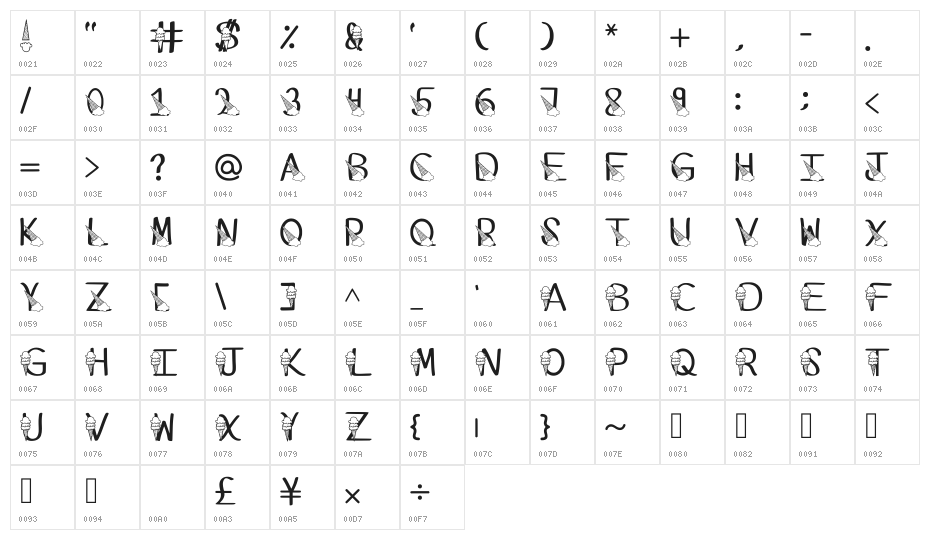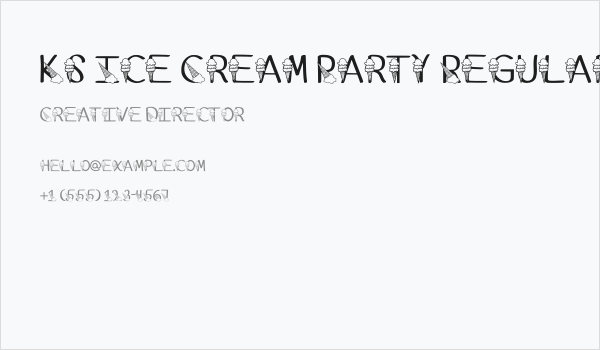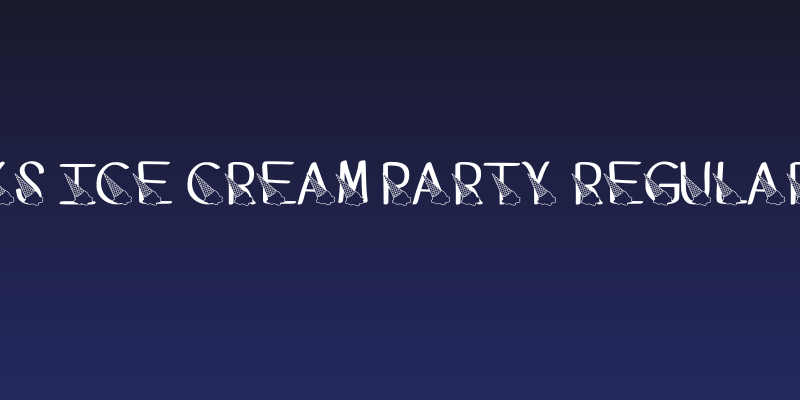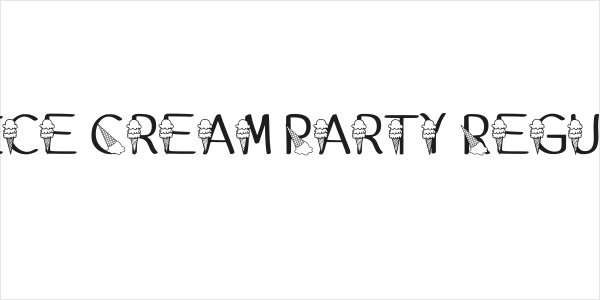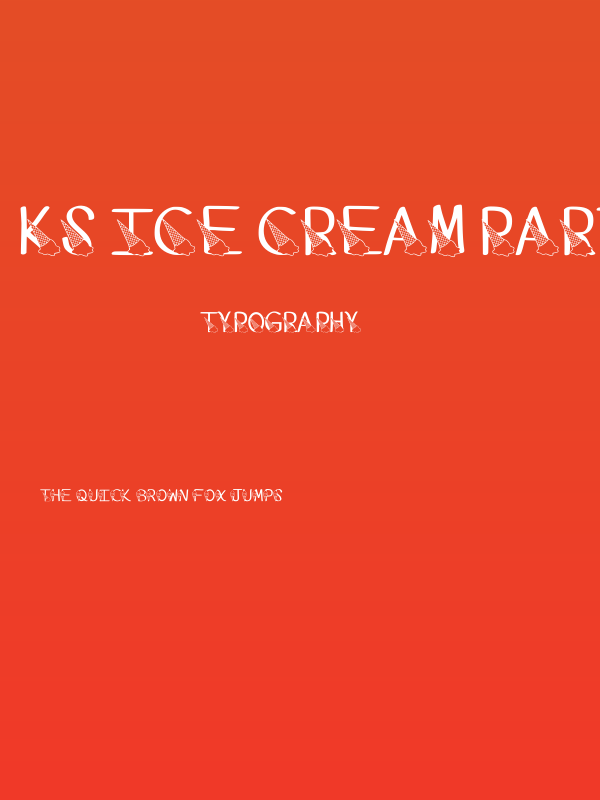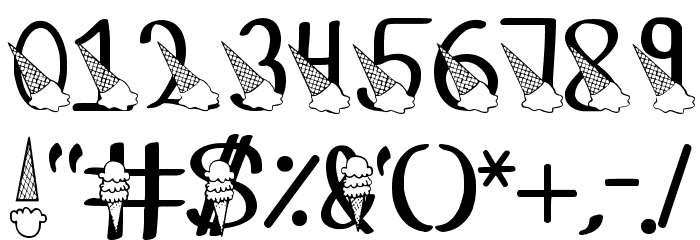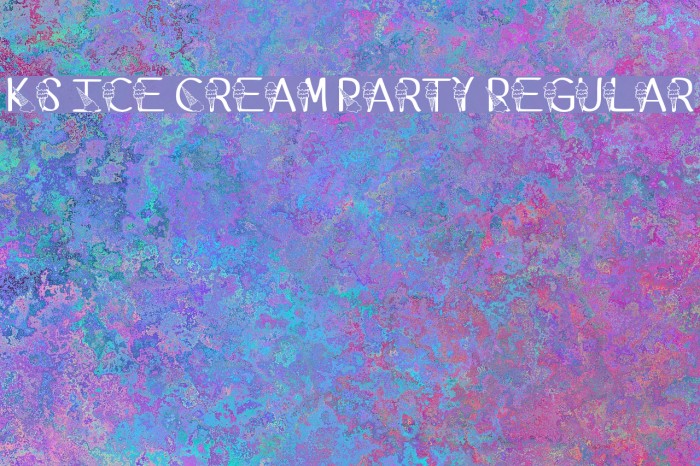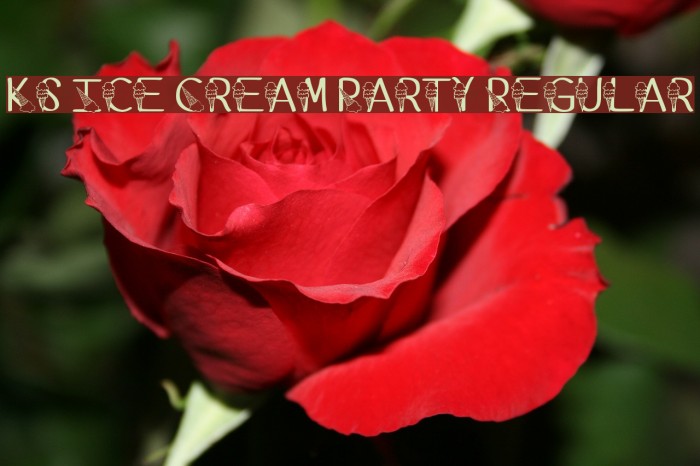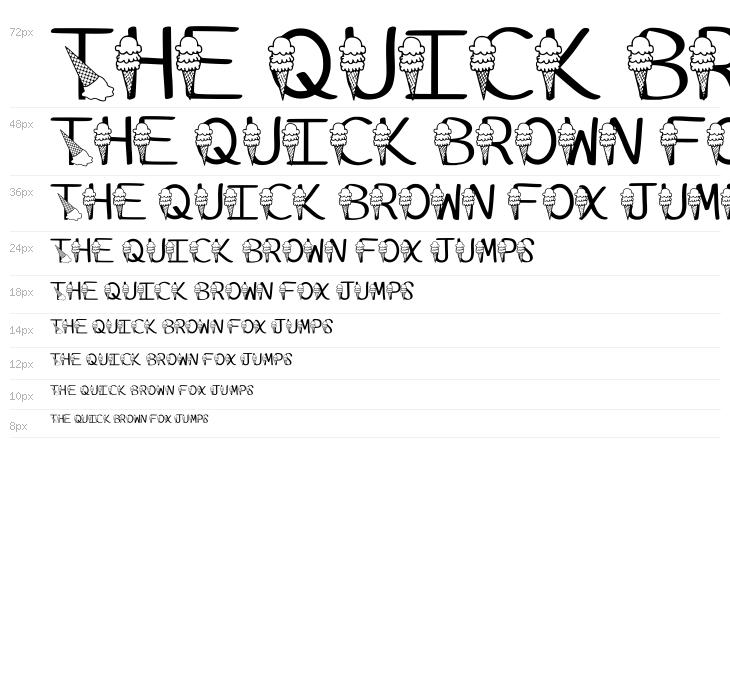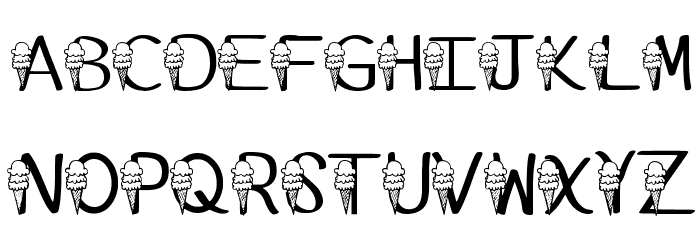
Ks Ice Cream Party Regular Font
Ks Ice Cream Party Regular Description
This playful and whimsical font features a unique ice cream cone design integrated into each character, creating a fun and engaging visual experience. The uppercase and lowercase letters maintain a consistent style, with the ice cream cone motif cleverly incorporated into the structure of each letter. The numbers and special characters also follow this theme, ensuring a cohesive look across all glyphs. The font's design is bold and eye-catching, making it ideal for projects that require a touch of creativity and fun. The character spacing is normal, allowing for easy readability while maintaining the decorative elements. This font is perfect for children's parties, ice cream shops, or any project that aims to evoke a sense of joy and playfulness.
| Overall Style | Playful, Whimsical |
| Proposed Projects | Ideal for children's party invitations, ice cream shop branding, playful posters, and fun social media graphics. |